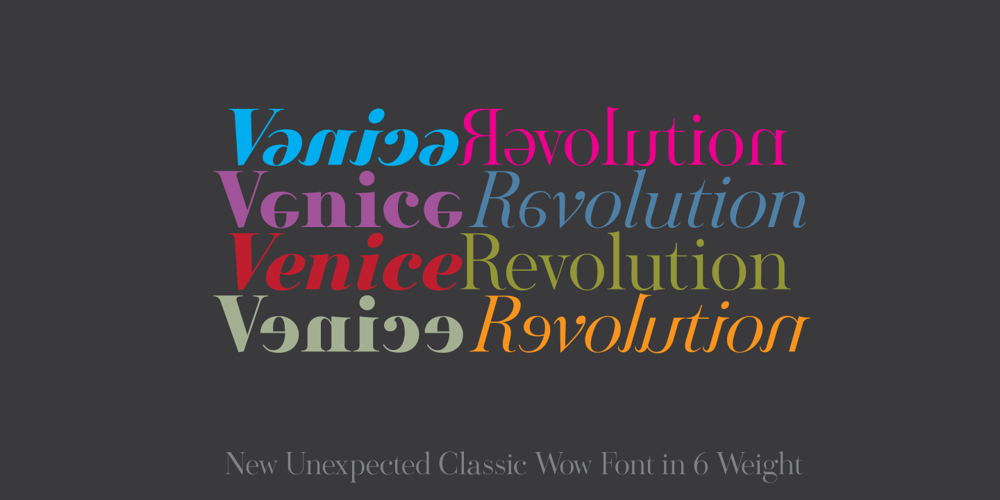
Venice Revolution Font Family was designed by Antonio Vignali and published by RM&WD. Venice Revolution contains 6 styles and family package options. This font take inspiration by the Venetian famous typographers in 1500s. Is a font designed to perform better when used in high dimension like Headline in Ad, Titles in Magazines or Blogs, Logos, Naming, Packaging… Is easy to have great result using contextual & stilistic alternatives, ligatures and other SS alternatives, as show in the posters. Is highly raccomended graphic applications with OpenType tab, such Adobe Illustrator or Photoshop or Quark Xpress InDesign, for the use of OpenType Features.